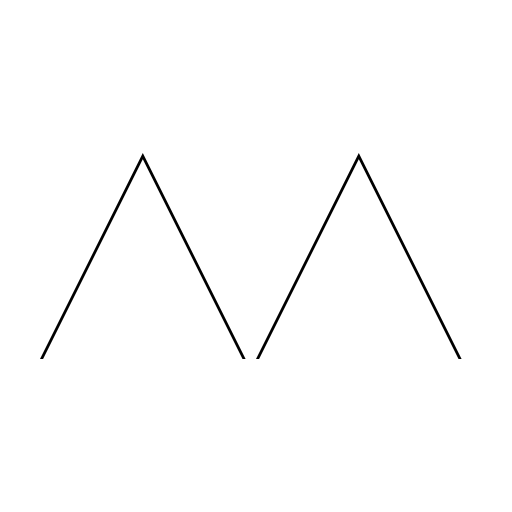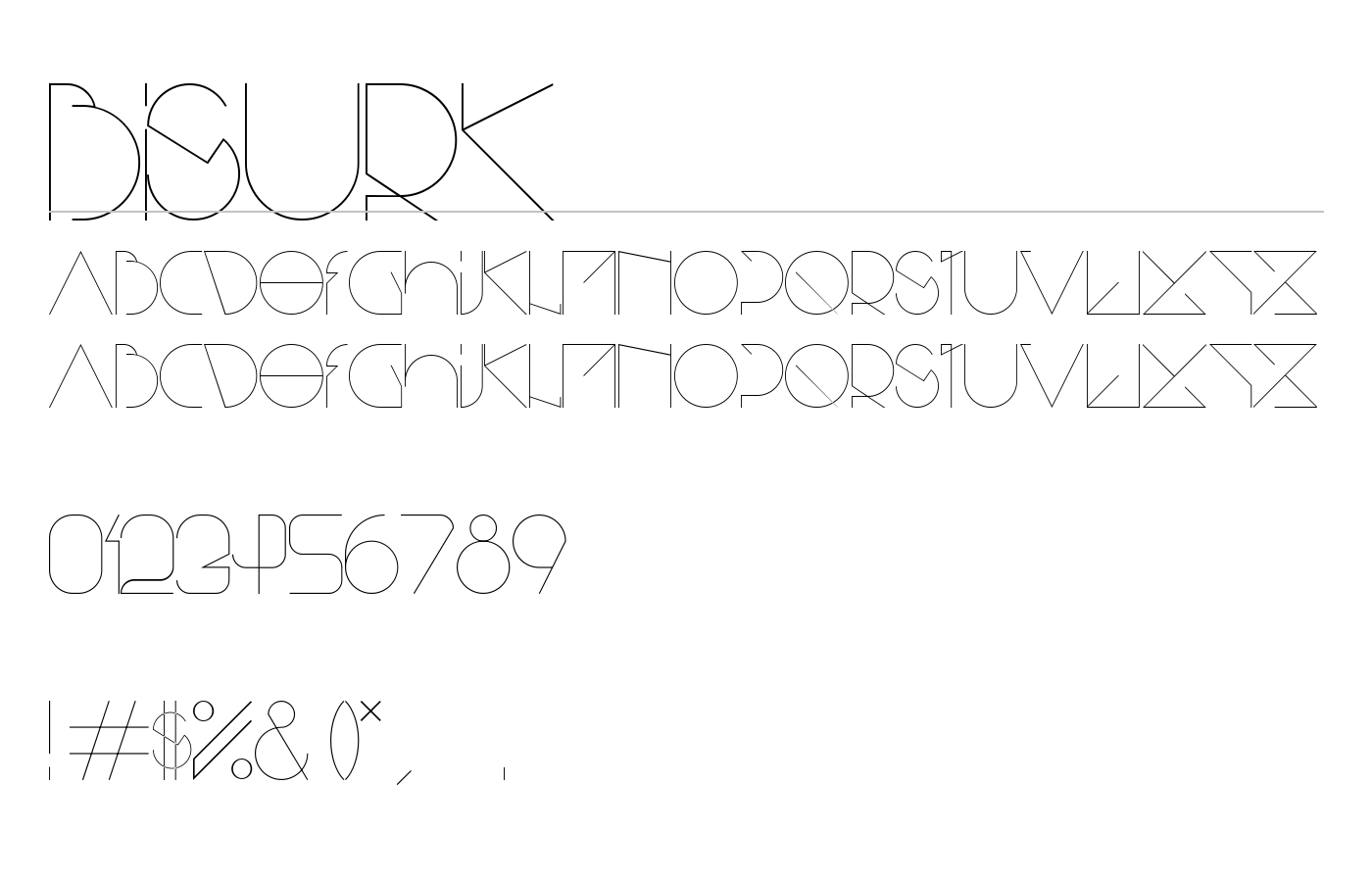
Bisurk is a sleek, ultra-lightweight sans serif font characterized by its delicate, geometric lines and minimal stroke contrast, giving it a modern and airy feel. Its design features a futuristic style with sharp angles and rounded curves that create a unique, abstract aesthetic, making it ideal for contemporary branding, fashion, or editorial projects that seek a sophisticated yet unconventional look. Perfect for large displays and logos, Bisurk impresses with its clean elegance and distinct visual voice in creative, high-end contexts.
Bisurk Font
About Bisurk Font
| Font family | Bisurk Font |
| Designer | Logan Mata |